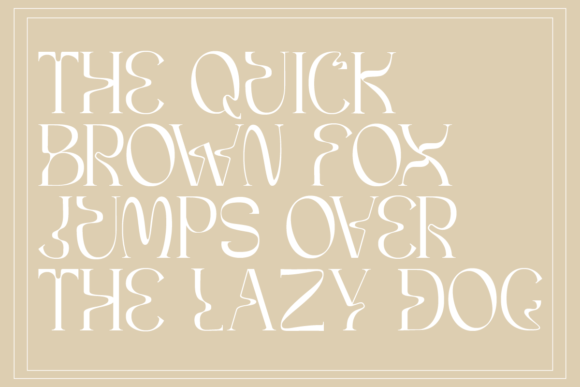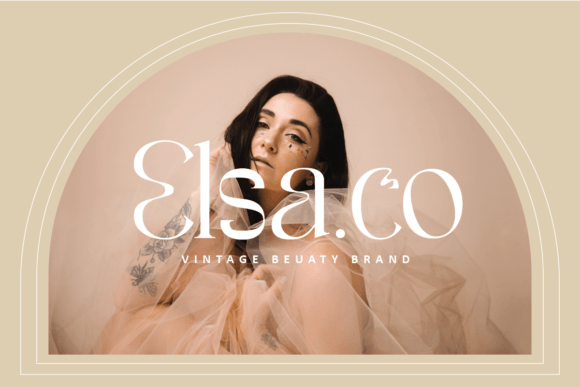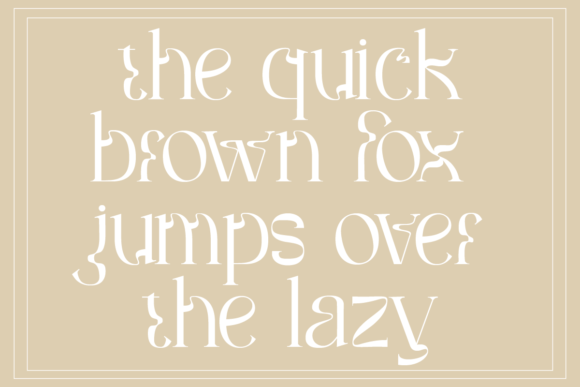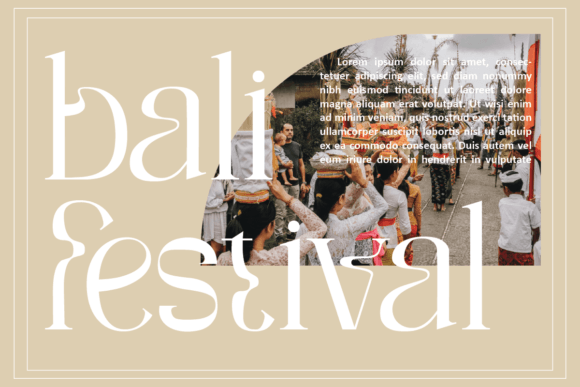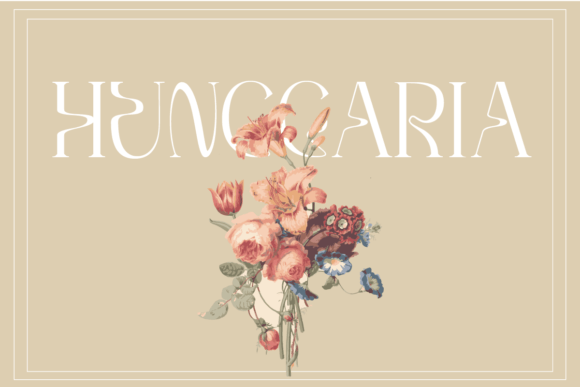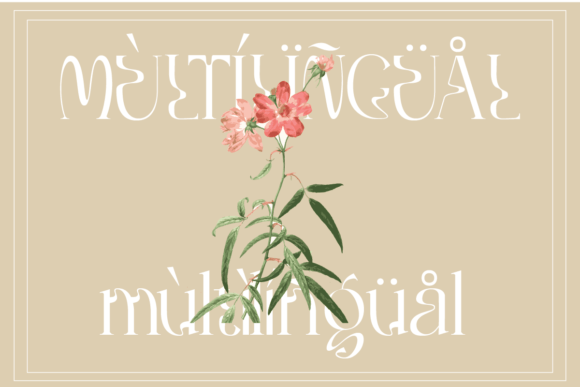
Gaykin Font: Elevate Your Designs with Modern Sophistication
In the world of typography, a font can make or break a design. For designers and crafters looking to add a touch of elegance and sophistication to their projects, Gaykin Font is an excellent choice. This modern serif font boasts ornamental characters that can elevate any design, from editorial projects to logo design, clothing branding, and more.
What is Gaykin Font?
Gaykin Font is a contemporary serif font designed to bring a sense of luxury and refinement to any project. Its ornamental characters add a unique touch, making it perfect for designers who want to create visually stunning designs. Whether you’re working on a large-scale project or a small one, Gaykin Font is versatile enough to work great in both large and small sizes.
Key Features of Gaykin Font
- Modern and Sophisticated Design: Gaykin Font features a sleek and modern design that exudes sophistication. Its serif lines and ornamental characters make it perfect for designs that require a touch of elegance.
- Ornamental Characters: The font’s ornamental characters are what set it apart from other serif fonts. These characters can add a unique touch to any design, making it stand out from the crowd.
- Versatility: Gaykin Font is incredibly versatile and can be used in a variety of projects, from large-scale editorial projects to small logo designs.
- Legibility: Despite its ornamental nature, Gaykin Font remains highly legible, making it perfect for use in both large and small sizes.
Use Cases for Gaykin Font
Gaykin Font is suitable for a wide range of design projects, including:
- Editorial Projects: Use Gaykin Font to add a touch of sophistication to your magazine, newspaper, or book designs.
- Logo Design: Create a lasting impression with a logo designed using Gaykin Font. Its unique ornamental characters make it perfect for branding.
- Clothing Branding: Elevate your clothing brand with Gaykin Font. Its modern and sophisticated design makes it perfect for use on apparel.
- Product Packaging: Make your product stand out on store shelves with Gaykin Font. Its ornamental characters can add a touch of luxury to any packaging design.
- Magazine Headers: Use Gaykin Font to create eye-catching magazine headers that grab readers’ attention.
- Text Overlay: Add a stylish text overlay to any background image using Gaykin Font. Its legibility and ornamental characters make it perfect for use in graphic designs.
Tips for Using Gaykin Font
To get the most out of Gaykin Font, here are some tips:
- Experiment with Sizes: Gaykin Font works great in both large and small sizes. Experiment with different sizes to find the perfect fit for your project.
- Pair with Other Fonts: Don’t be afraid to pair Gaykin Font with other fonts to create a unique and visually appealing design.
- Use Ornamental Characters Wisely: While the ornamental characters in Gaykin Font are beautiful, they can be overwhelming if overused. Use them sparingly to add a touch of elegance to your design.
Gaykin Font is a versatile and sophisticated serif font that can elevate any design. Its modern design, ornamental characters, and legibility make it perfect for a wide range of projects, from editorial designs to logo design and clothing branding. With its versatility and unique features, Gaykin Font is an excellent choice for designers and crafters looking to add a touch of luxury to their designs.